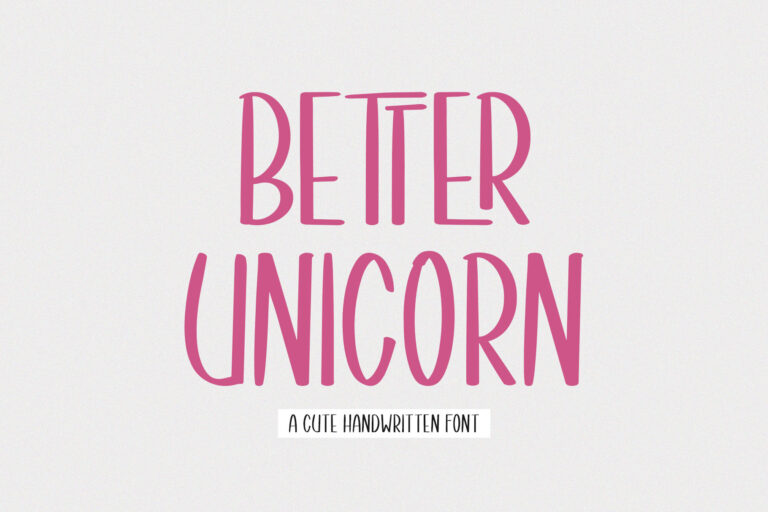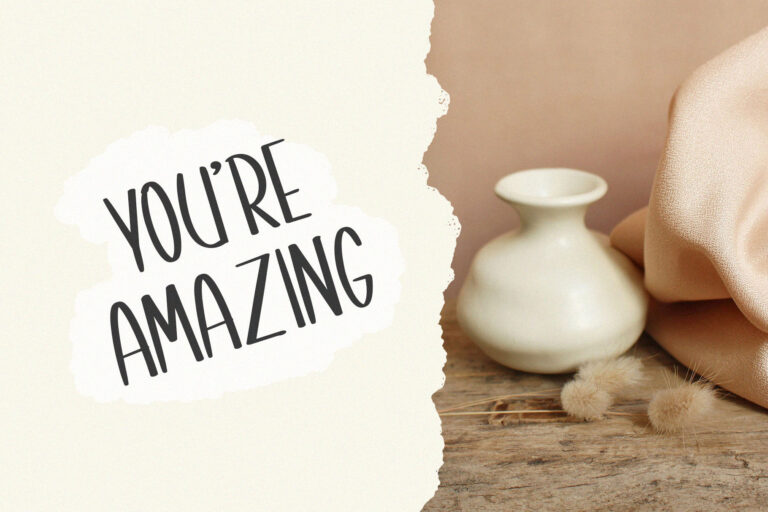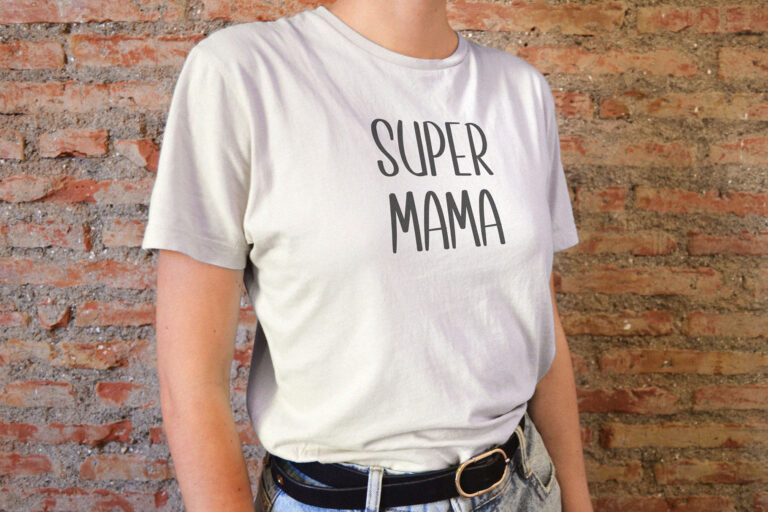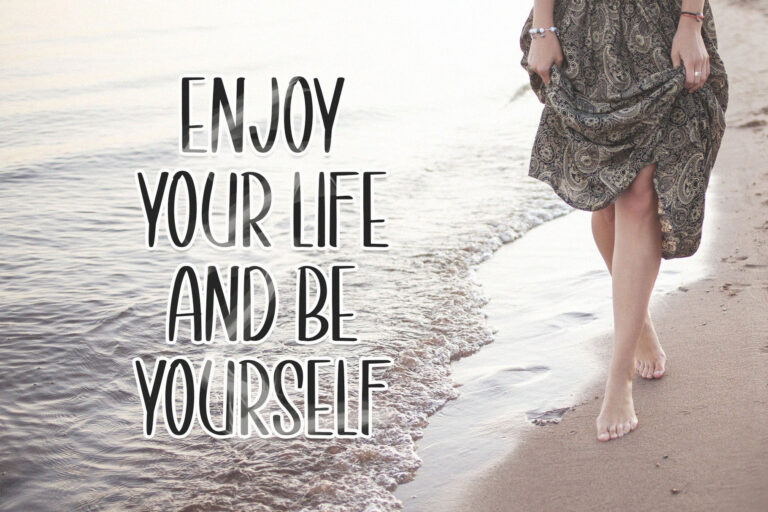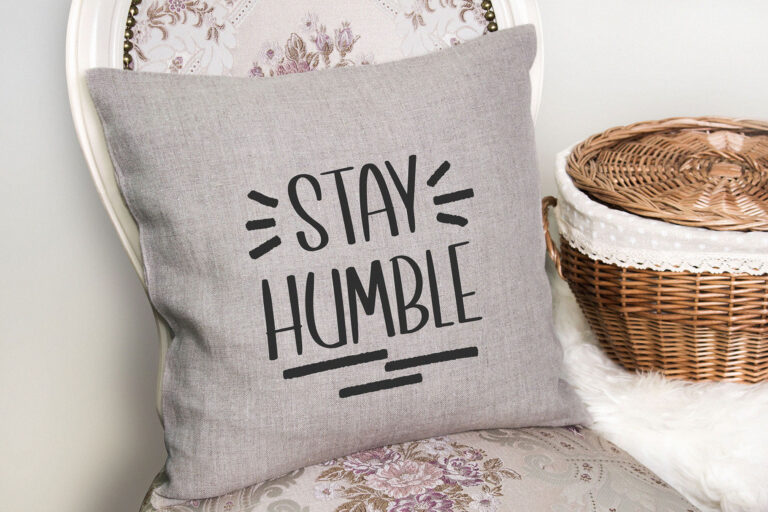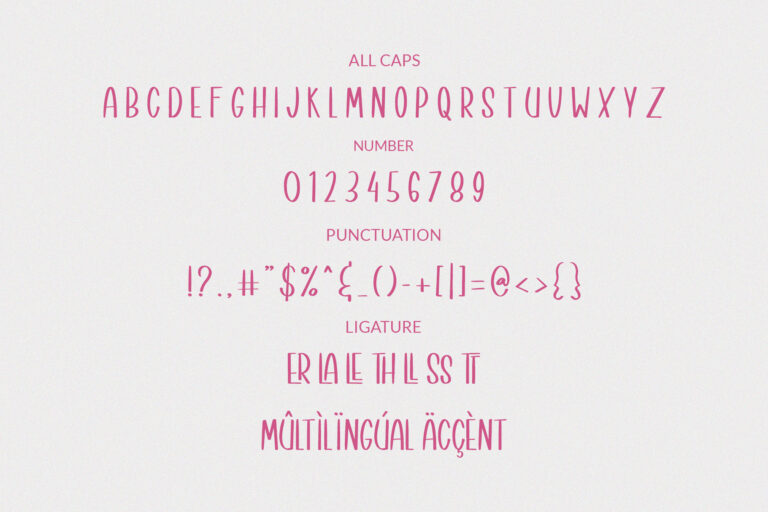
- Better Unicorn // Handwritten Font
Better Unicorn is a sweet, funny, cute handwritten font. Clean and soft, this font is the perfect fit for all of your crafty DIY projects, cricut, logos, branding, social media, etc.